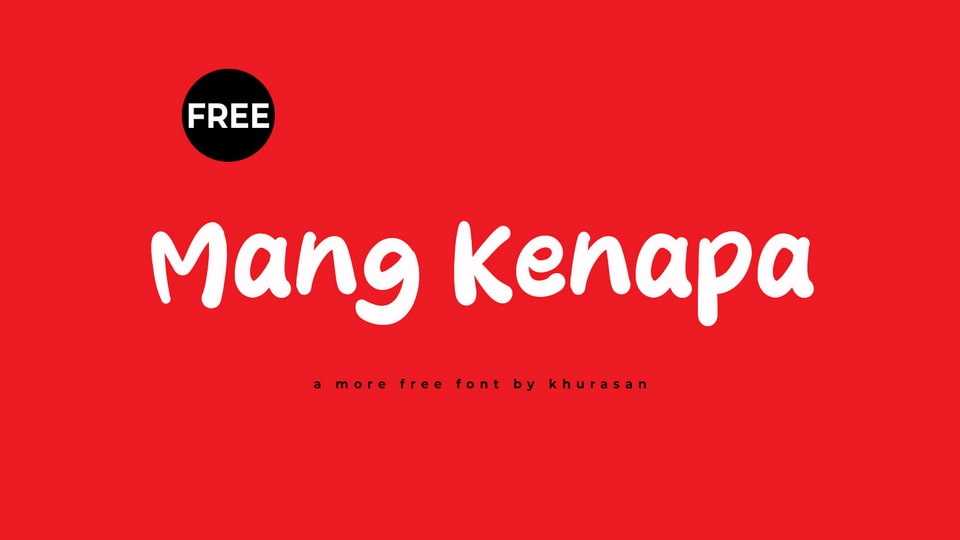
Download Mang Kenapa font, a funny and cute handwritten comic typeface that brings a touch of whimsy and delight to your designs. It features playful, freeform letterforms with charming irregularities and a joyful demeanor.